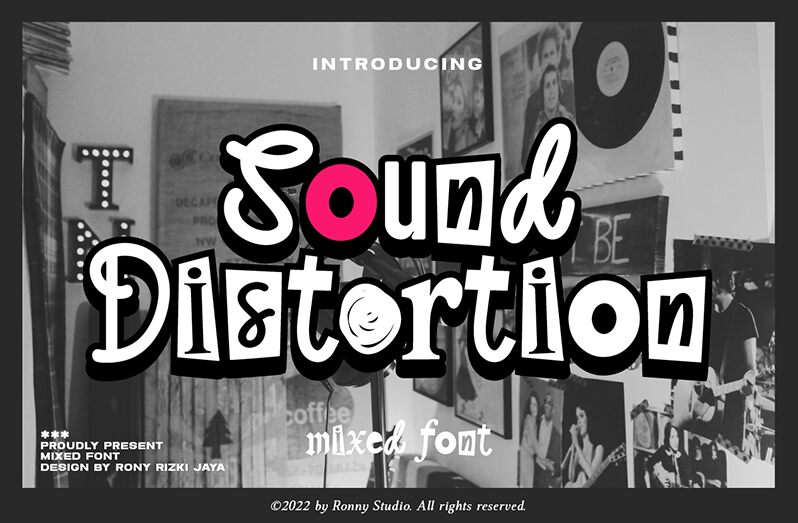
"Sound Distortion" is the perfect font for projects that aim to evoke a sense of nostalgia and vintage charm. Its distorted style, inspired by retro collage art and old newspaper clippings, adds a unique and chaotic touch to any design.
This display font combines various styles, including sans serif, condensed serif, blackletter, handwriting, and old typewriter fonts. The result is a captivating blend that brings back memories of the past. With alternates characters and lowercase options available, you can easily mix and match letters to create even more eye-catching designs.
Whether you're working on posters, album covers, or branding materials, "Sound Distortion" will give your project an irresistible old-school flavor.
Sound Distortion